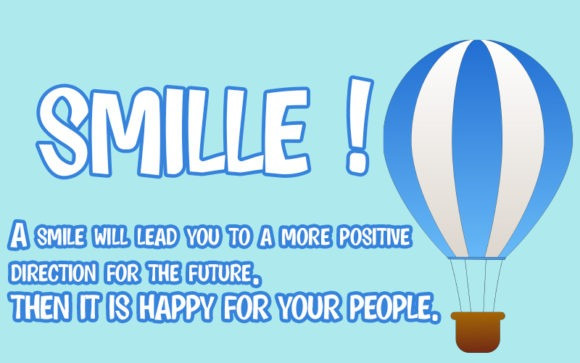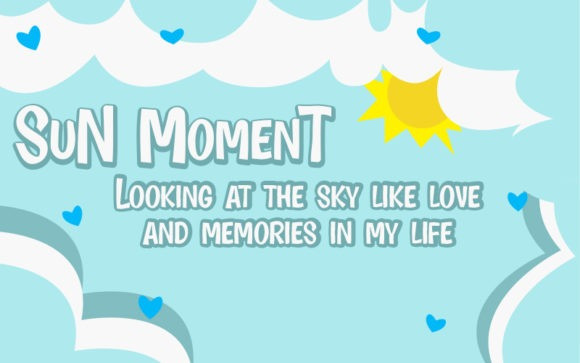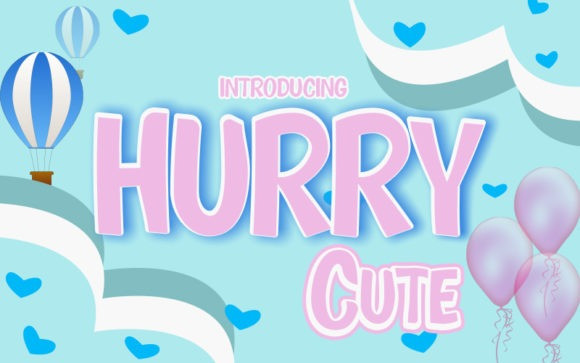
Hurry Cute Display Font
Hurry Cute is a bold handwritten font, carefully handcrafted to become a true favorite. Its casual charm makes it appear wonderfully down-to-earth, readable and, ultimately, incredibly versatile.